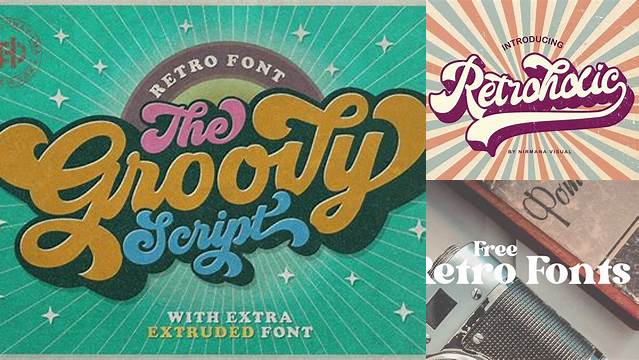
Awesome Retro Free Fonts: Download Now!
Hey design enthusiasts! Are you ready to travel back in time with some seriously cool typography? Today, we're diving headfirst into the world of best retro free fonts. These fonts are perfect for adding a touch of vintage charm to your projects, whether you're working on a website, a poster, or even a personal project. Get ready to discover some amazing typography that will make your designs pop. Let's get started, shall we?
H2: The Timeless Appeal of Retro Fonts
Guys, have you ever wondered why retro fonts are still so incredibly popular? Well, it's because they tap into a sense of nostalgia, elegance, and a bygone era that still resonates with us today. Best retro free fonts offer a unique blend of classic styles, and modern functionality, making them a versatile choice for a wide range of design projects. These fonts are like a time machine, instantly transporting your audience to the past, whether it's the groovy '70s, the sleek '60s, or the elegant '50s. This timeless appeal ensures that retro fonts will always remain a valuable asset in any designer's toolkit. The allure of retro fonts lies in their ability to evoke strong emotions. They can create a sense of warmth, familiarity, and even excitement, depending on the specific style. Think of the classic diner signs, the vintage movie posters, or the iconic advertising campaigns of the past. These visual cues are instantly recognizable and create an immediate connection with the viewer. Whether you're designing a website, a logo, or a poster, incorporating retro fonts can significantly enhance your design's impact and overall appeal. The resurgence of vintage aesthetics in modern design highlights the enduring power of retro fonts. They provide a bridge between the past and the present, allowing designers to create designs that are both nostalgic and contemporary. This unique combination makes them a favorite among designers looking to add a touch of personality and uniqueness to their work. So, if you're looking to add a bit of nostalgia, personality, or vintage flair to your projects, then best retro free fonts are a perfect choice. You'll be amazed at the impact these fonts can have on your designs. It's time to embrace the timeless allure of retro typography.
H2: Where to Find the Best Free Retro Fonts
H2: Exploring Different Retro Font Styles
Best retro free fonts come in all shapes and sizes, each with its unique character and charm. Understanding these different styles will help you choose the perfect font for your project. So let's delve into the variety of styles available to you. First up, we have the classic serif fonts, which evoke a sense of tradition, elegance, and sophistication. These fonts often feature small strokes at the ends of the letter, giving them a refined look. They’re perfect for conveying a sense of trustworthiness, making them a popular choice for headlines, body text, and logos, especially when aiming for a timeless look. Next, we have the sans-serif fonts, which are more modern and minimalist in their appearance. Without the small strokes, these fonts have a clean and streamlined look. These fonts are known for their readability and versatility, making them suitable for a wide range of design projects. They're a great option if you want to create a modern retro look. Think of the fonts used in the mid-century modern design or the sleek typography of the space-age era. Another popular style is the script fonts, which mimic the style of handwritten calligraphy. They can add a personal, elegant, and slightly romantic touch to your designs. Script fonts work great for invitations, logos, or any other design projects where you want to convey a sense of artistry. Then, there are slab serif fonts, which are characterized by their thick, blocky serifs. These fonts have a bold and impactful presence, which makes them perfect for headlines, posters, and designs where you want to capture the viewer's attention. Finally, there are the more decorative fonts, which can include a variety of different styles, such as those inspired by Art Deco, Art Nouveau, or the psychedelic era. These fonts can add a unique and eye-catching look to your designs. Choosing the right font style is key to communicating your message effectively. So, go on and explore the different styles to see what best suits your needs! So explore the possibilities of each style to see what best fits your retro design.
H3: Vintage Serif Fonts
Let's start with vintage serif fonts. These fonts are the cornerstone of retro design, they remind us of the old-fashioned newspapers, magazines, and classic books that we all love. Best retro free fonts in the serif category usually have distinctive features, such as elegant serifs, high contrast between thick and thin strokes, and a sense of sophistication. Using a vintage serif font will instantly add a touch of class and tradition to your designs. A classic example is Bodoni, which has a high contrast and is very elegant. Another great option is Garamond, which is a versatile choice with a warm and inviting feel. Consider pairing it with a slightly contrasting sans-serif font to create an interesting visual balance. Times New Roman is another popular choice, and even though it might seem a bit basic, it can be a great choice, if you want a classic retro look. When choosing a vintage serif font, consider the era you're trying to capture. For a 19th-century look, opt for a font with ornate details. For a mid-century vibe, look for something a little more streamlined. The key is to select a font that evokes a sense of nostalgia and complements your overall design aesthetic. These fonts are perfect for logos, headlines, and body text, depending on the desired effect. Always make sure to test them in different sizes and contexts to ensure they work well with your design. Consider the spacing between the letters, the kerning, and the leading to ensure optimal readability. So, go on, explore the wonderful world of vintage serif fonts and find the perfect match for your design!
H3: Retro Sans-Serif Fonts
Moving on to retro sans-serif fonts. These fonts bring a more modern twist to the retro look. They capture the simplicity of past eras, with a sleek and clean design. Best retro free fonts in the sans-serif category are great for both body text and headlines. Think about the fonts used in the early days of computer technology, or the geometric shapes of the Art Deco movement. When selecting a retro sans-serif font, look for fonts that capture the essence of the past without feeling dated. Fonts like Futura and Avant Garde are excellent choices, and they've stood the test of time. Their geometric shapes and clean lines add a touch of futuristic elegance to your design. These fonts often have a strong visual impact, which can be further enhanced with the right color choices. Consider using a sans-serif font for your website headlines and body text to create a sense of modernity. For a mid-century vibe, consider fonts with rounded edges or a touch of playfulness. When it comes to design, remember that every detail matters, and you should test the font in different sizes and contexts. You should always ensure that your design conveys the message you want to communicate. When used correctly, these fonts can create a distinct and memorable look that perfectly captures the essence of the retro style. These fonts are perfect for those designs that require a modern twist. So, explore and let your creativity run wild!
H3: Script Fonts with a Vintage Feel
Let's get into script fonts, guys! These fonts bring a touch of elegance, personality, and charm to any design. The best retro free fonts in this category mimic the beauty of handwriting and calligraphy, which allows you to add a personal touch to your designs. Script fonts often have elegant swirls, flowing curves, and a graceful appearance. Imagine the classic handwriting from vintage letters, invitations, and signs. When choosing a script font, consider the overall mood and style of your project. Do you want a delicate and romantic vibe? Or something more bold and playful? Fonts such as Brush Script MT and Lobster Two are great choices to add a touch of playfulness. These fonts have a vintage feel and work well for creating logos, invitations, and headings. You can also combine script fonts with other font styles to create an interesting contrast. For instance, pairing a script font with a clean sans-serif font for a headline and body text can create a balanced and visually appealing design. Pay attention to readability, and make sure that the font is easy to read at the size you are using it. You should also make sure that the font does not have too many decorative elements that may make it difficult to read. Make sure you use it in the right context. Experiment with different sizes and see how well it works within your overall design. In short, when you combine it with the right colors and graphics, script fonts can add a distinctive touch that will make your designs unforgettable.
H2: Using Retro Fonts in Your Designs
Alright, so you've got your hands on some best retro free fonts. Now, the fun part: how to use them in your designs! Firstly, consider your project's purpose and target audience. Are you designing a website for a vintage clothing store? Or perhaps a poster for a retro-themed party? The font you select should resonate with the message you're trying to convey. Also, don't be afraid to experiment with different combinations. Pairing a bold retro font with a more understated one can create an interesting visual hierarchy and draw attention to your most important information. It's all about finding the right balance. Also, use retro fonts sparingly, especially when it comes to body text. Too much of a good thing can make your design feel overwhelming and difficult to read. Consider using a retro font for headlines and subheadings and a more legible font for the main content. That will create a clean and easy-to-read design. Color is another crucial element. Choose colors that complement your font and enhance the retro aesthetic. Think about classic color palettes from different eras, such as the bright colors of the '60s or the earthy tones of the '70s. Also, consider the size and scale of your fonts. Experiment with different sizes to ensure that your headlines are easy to read and that your design is visually appealing. Also, the spacing between the letters, or kerning, can greatly impact the readability and aesthetics of your design. Experiment with different kerning values to find the perfect balance. By combining all of these elements effectively, you can create designs that not only look amazing but also effectively communicate your message and create a lasting impact.
H2: Websites with Ready to Download Retro Fonts
Alright, so you're ready to start downloading and designing! But where do you find all these best retro free fonts? Luckily, there are numerous websites that offer extensive collections of retro fonts. These websites are a great resource for anyone looking to add a touch of vintage charm to their designs. You can browse, search, and download fonts that fit your specific project needs. One of the most popular sites is Google Fonts, which offers a wide range of retro fonts, all available for free. You can browse the font library based on different categories and styles. Another great platform is Font Squirrel, which provides a curated collection of high-quality, free fonts. It includes various retro-inspired fonts, and their user-friendly interface makes it easy to find the perfect font for your projects. In addition to these platforms, you can also find retro fonts on websites specializing in free design resources. You will find websites like DaFont, which provide numerous fonts with different styles. Always remember to check the licensing agreements before using any font for commercial purposes. These platforms usually provide detailed information on the usage rights. Also, consider visiting websites with design resources such as BeFonts. They offer a curated selection of fonts to enhance your creative process. Explore these websites, experiment with different fonts, and discover the ones that best fit your design needs. These websites will provide you with all of the necessary tools to start designing.
H3: Google Fonts for Retro Style
Google Fonts is a great place to start your search for the best retro free fonts. It's an excellent platform for finding retro fonts because of its extensive library and ease of use. It provides a large collection of fonts, including those with retro styles. Google Fonts allows you to easily search and filter fonts by different categories, such as serif, sans-serif, and script, which helps you find the perfect retro font for your project. In addition, Google Fonts offers an easy-to-use preview feature, allowing you to see how each font will look when you type in your custom text. This is an invaluable feature for any designer. The fonts on Google Fonts are free to use, which means you can use them for personal and commercial purposes, as long as you comply with the license agreement. This makes it a great choice for small businesses, freelancers, and designers. You can easily download the fonts and install them on your computer, which allows you to use them in various design software, such as Photoshop, Illustrator, or Canva. Also, you can access a wide range of retro-inspired fonts, including those with a vintage, classic, or art deco feel. These fonts are perfect for logos, websites, posters, and any other design project where you want to capture the retro aesthetic. The user-friendly interface allows you to easily browse, preview, and download fonts, so you can quickly find the perfect retro font. With Google Fonts, creating stunning retro designs is easy, accessible, and fun. With its large selection of fonts and free usage, Google Fonts is a must-have tool for any designer.
H2: Conclusion: Embrace the Retro Vibe!
Alright, we've covered a lot of ground today, from the appeal of retro fonts to where to find the best retro free fonts and how to use them in your designs. I hope you're as excited about these fonts as I am! So, now it's time to dive in, explore these awesome fonts, and let your creativity run wild. These fonts are a great way to transport your audience to the past. Whether you are a designer, an enthusiast, or anyone who loves vintage aesthetics, best retro free fonts are a fantastic resource for adding a unique touch to your projects. So, go on and start creating those vintage designs.